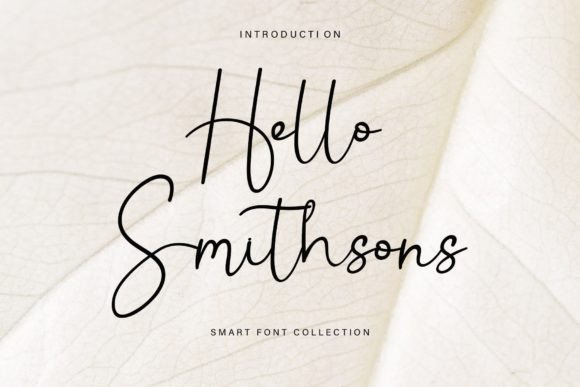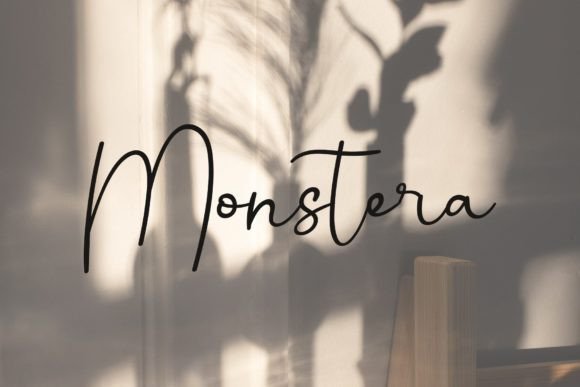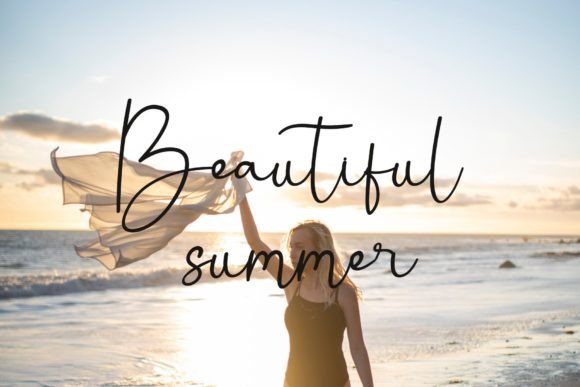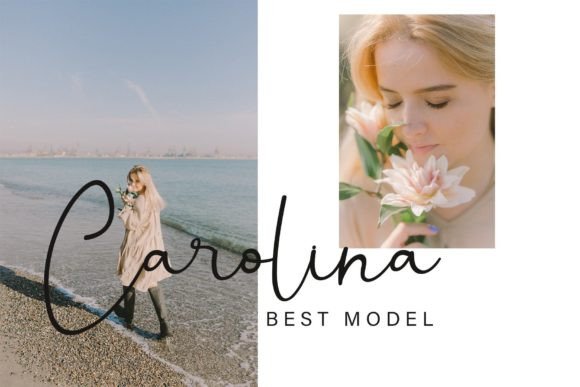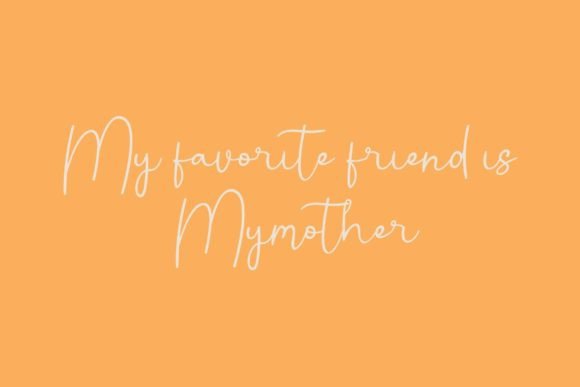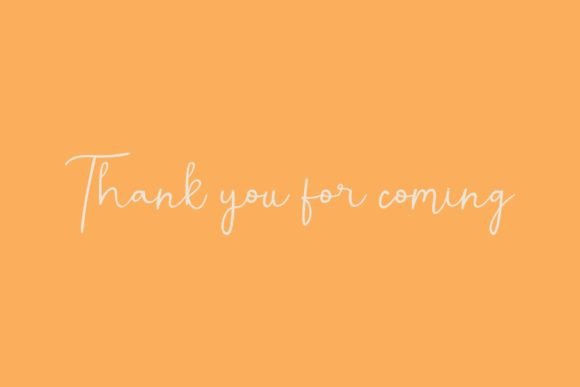
Hello Smithsons Font
About Hello Smithsons Font
“Hello Smithsons” is a delightful and playful handwritten font that exudes a fun and friendly vibe. Its unique charm adds character to any design, turning ordinary ideas into true standouts. With its lively and approachable style, this font invites creativity and inspires lovely designs.
The font’s playful nature makes it perfect for a wide range of applications. Whether you’re working on greeting cards, social media posts, posters, invitations, or any other creative project that needs a touch of whimsy, “Hello Smithsons” injects a sense of fun and friendliness. Its handwritten quality gives designs a personal touch, making them more relatable and engaging to viewers.
“Hello Smithsons” is designed to bring joy and creativity to your projects. Its friendly appearance creates a warm and inviting atmosphere, making it ideal for designs that aim to connect with the audience on a personal level. The font’s versatility allows it to adapt to various themes and styles, making it a valuable asset for designers seeking a playful and approachable typographic solution.
Embrace the fun and friendly spirit of “Hello Smithsons” in your creative endeavors. Let its unique charm inspire you to create lovely designs that capture the hearts of your audience. Whether you’re designing for personal or professional purposes, this font is sure to add a touch of happiness and creativity to your projects, making them truly standout and memorable.